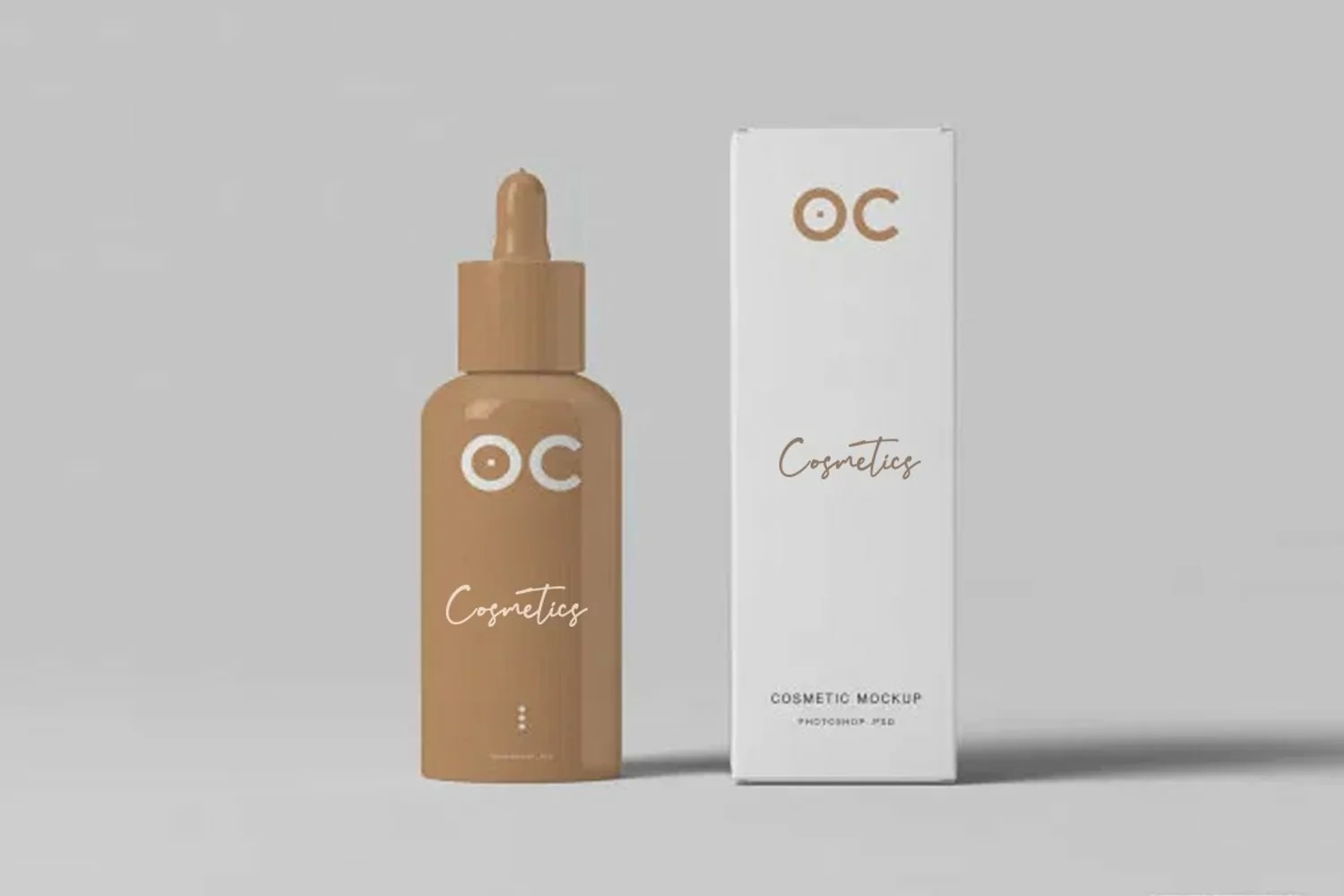
**Drekmit ** made with simple and elegant hand writing will create stunning signature style.
**Drekmit ** is perfect for branding projects, logo, wedding designs, social media posts, advertisements, product packaging, product designs, label, photography, watermark, invitation, stationery and any projects that need handwriting taste.